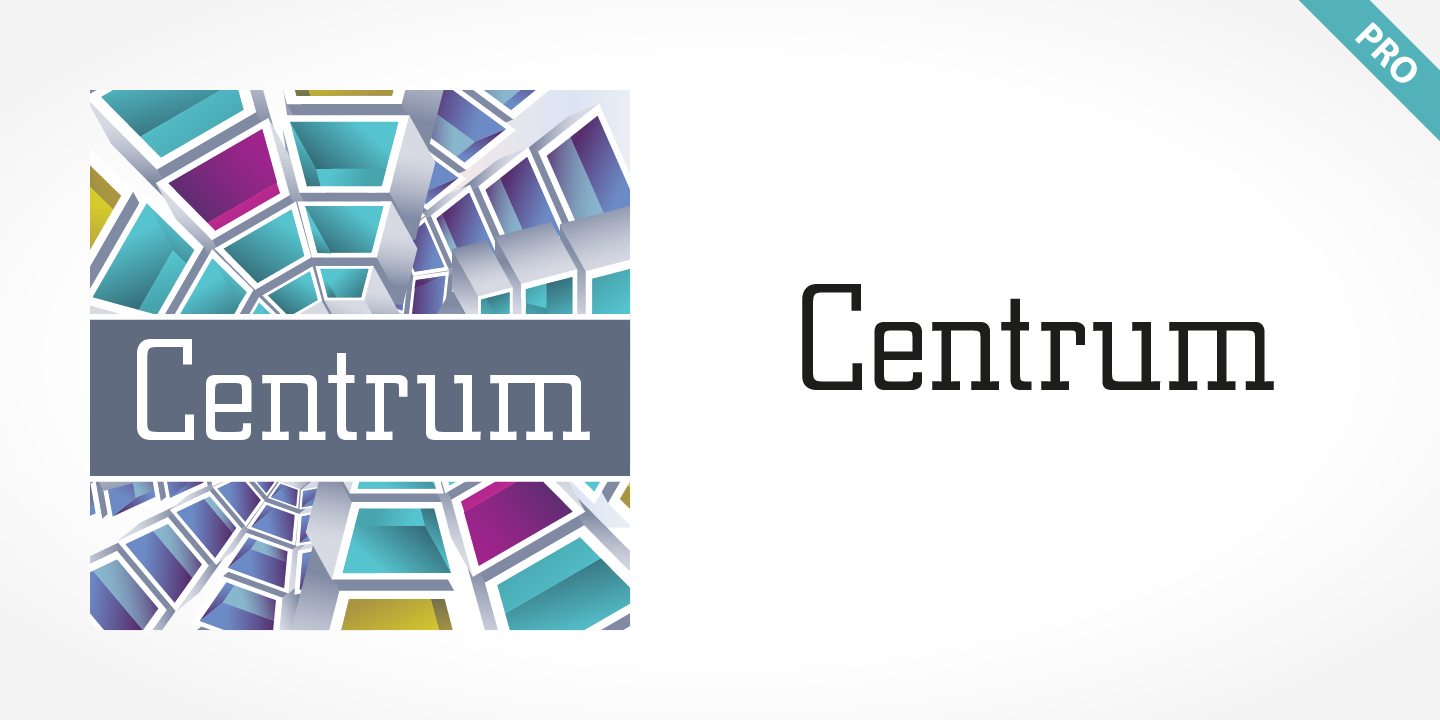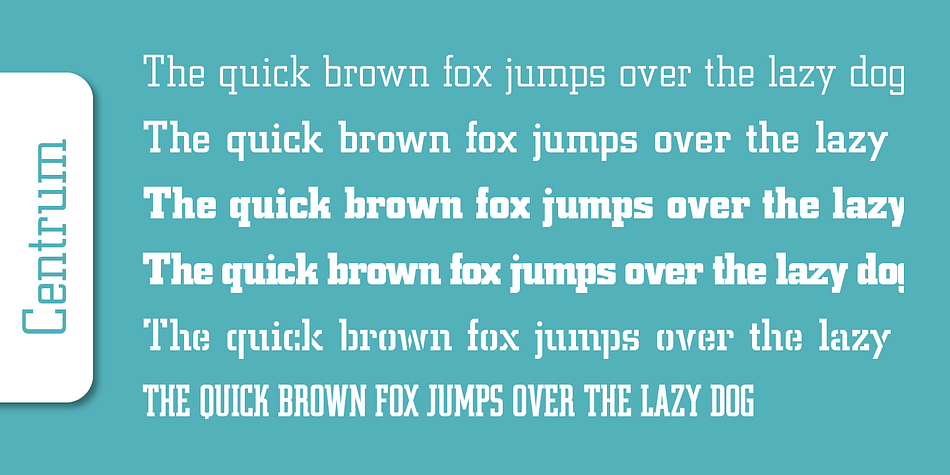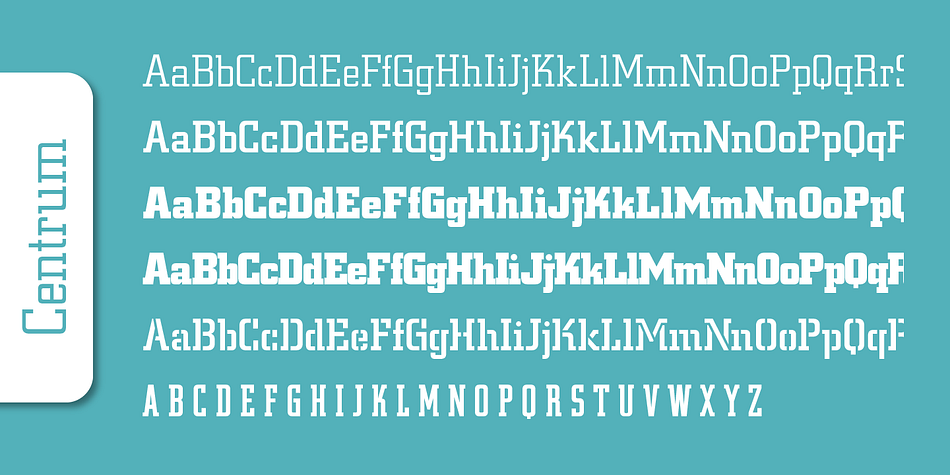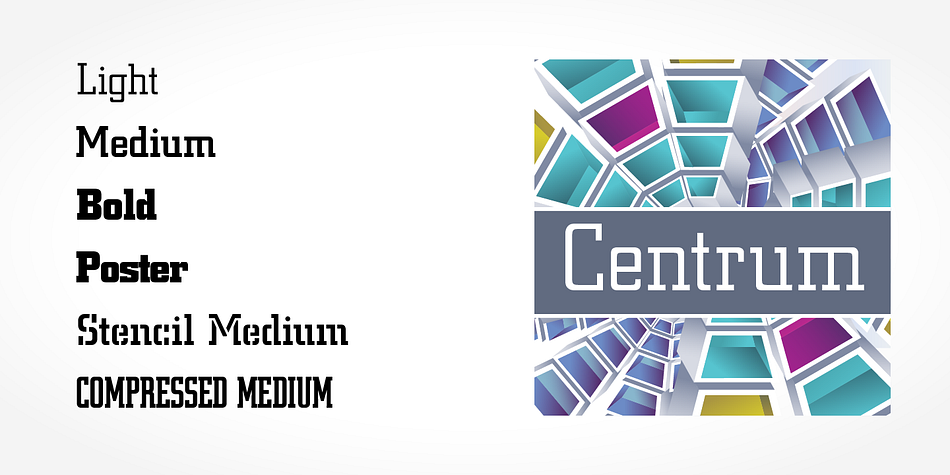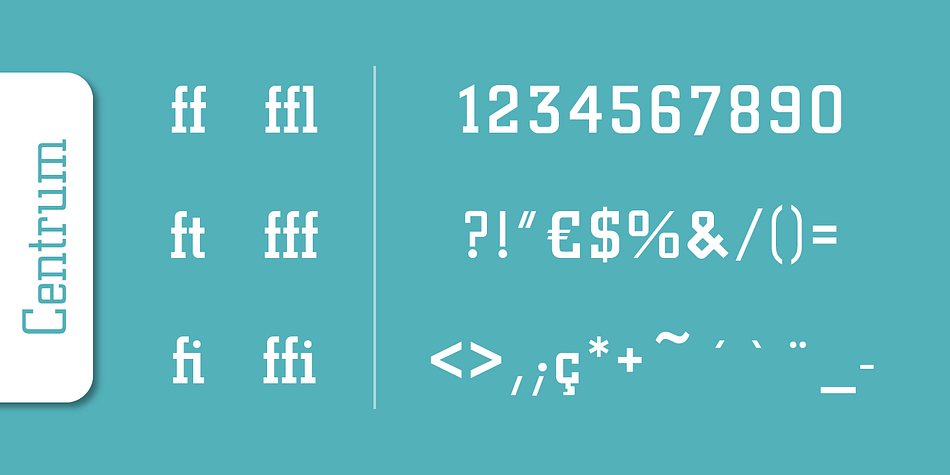
Centrum Pro
Centrum Pro is a slab serif and stencil font family. This typeface has six styles and was published by SoftMaker.
Designed for attention and impact in advertising, the first Egyptians or slab serifs appeared at the beginning of the Industrial Revolution (1800s). They regained popularity following World War I and in 1930. Centrum Pro is instinctive and has a rectangular design that evokes a sporty, urban feeling.